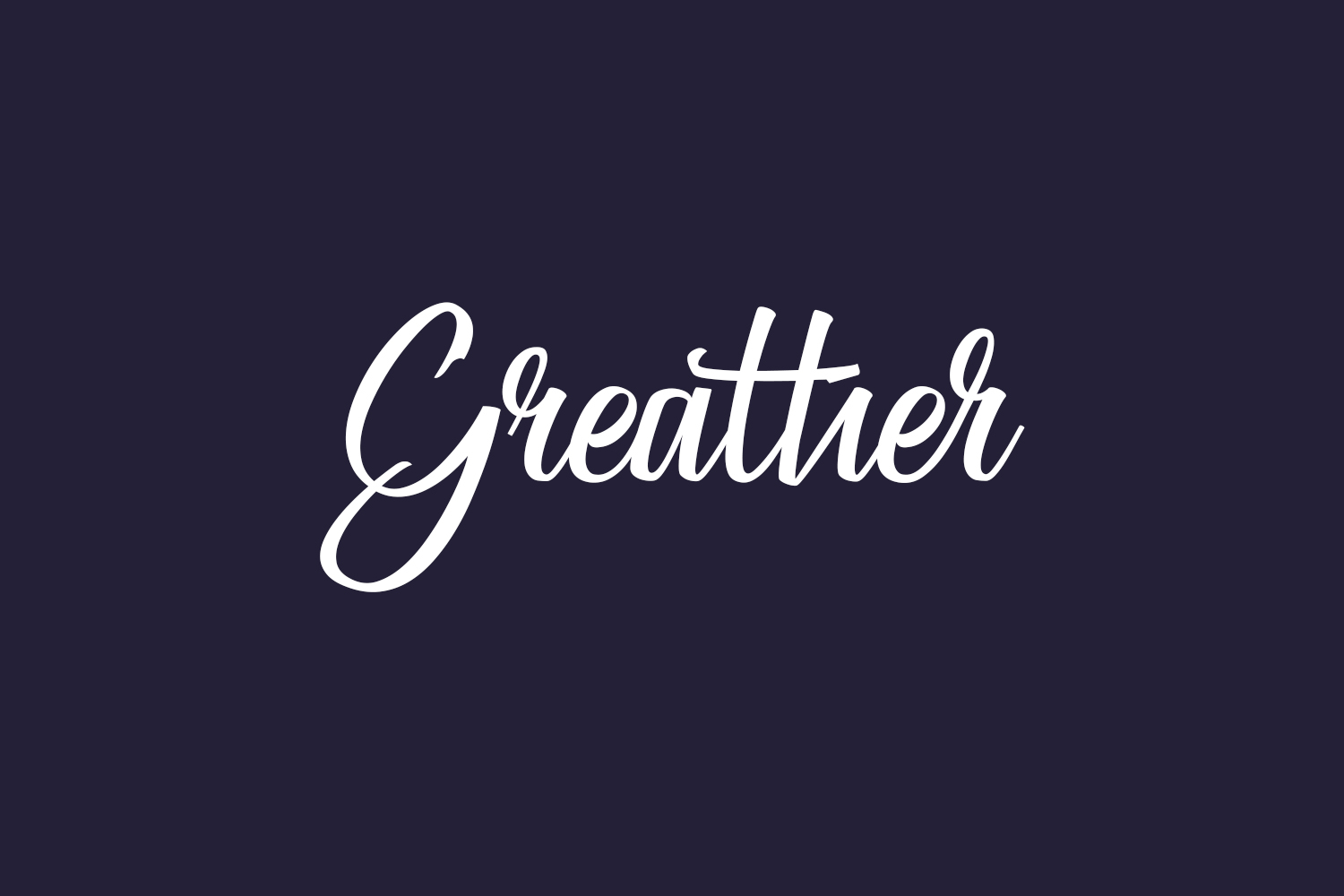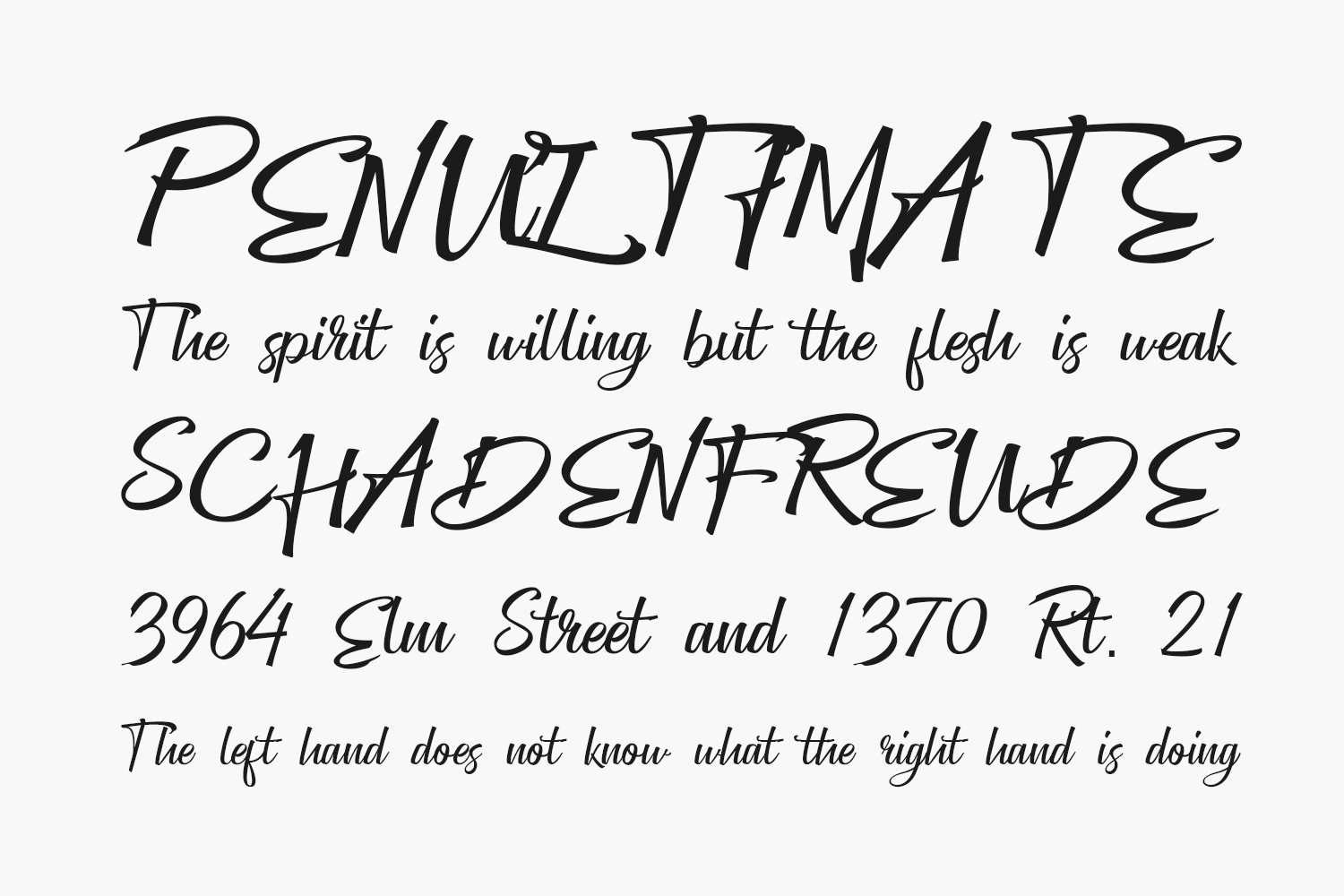
Greather Free Font is a modern and casual handwritten font. Simple and easy to use, this font will be very beautiful if you mix it with your various craft designs. Greather Free Font was designed by Arief HK and is free for personal use only. Please purchase the full version for commercial use.